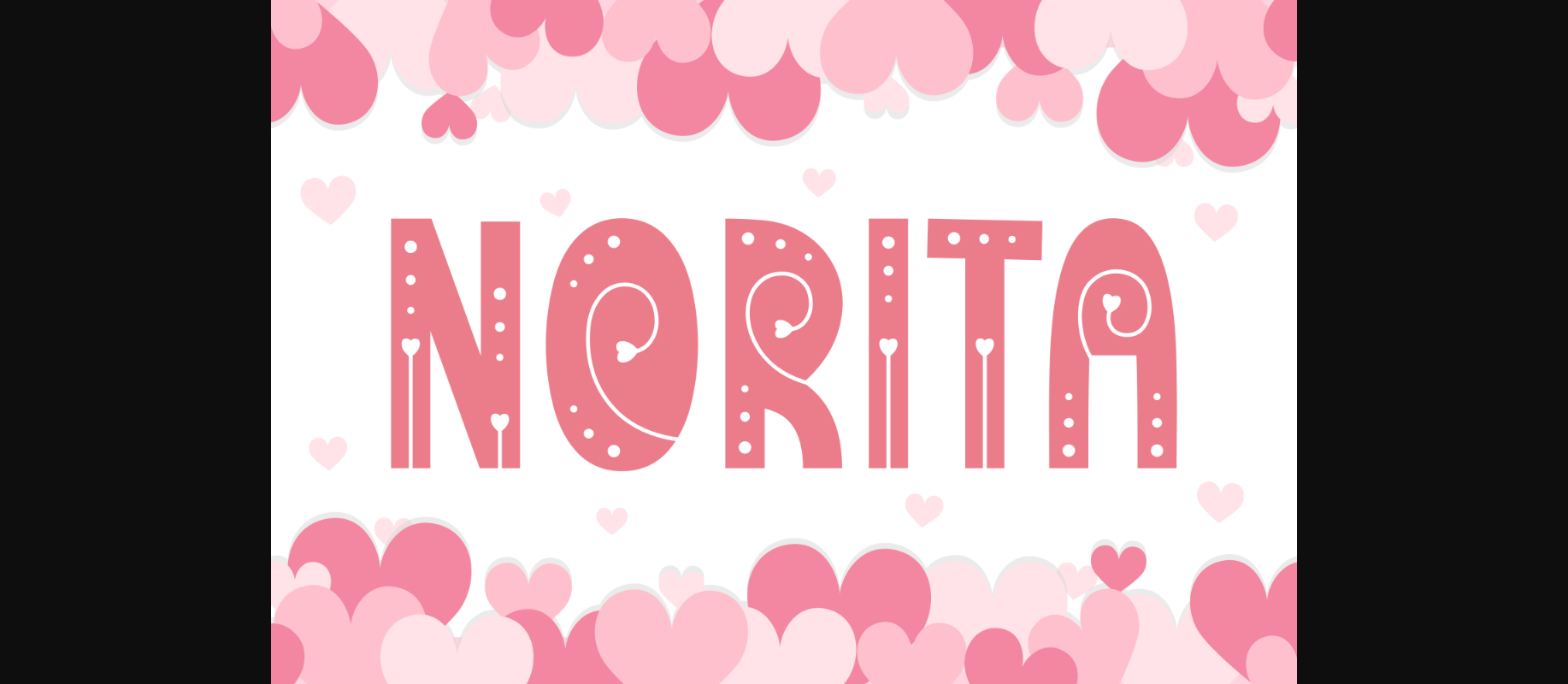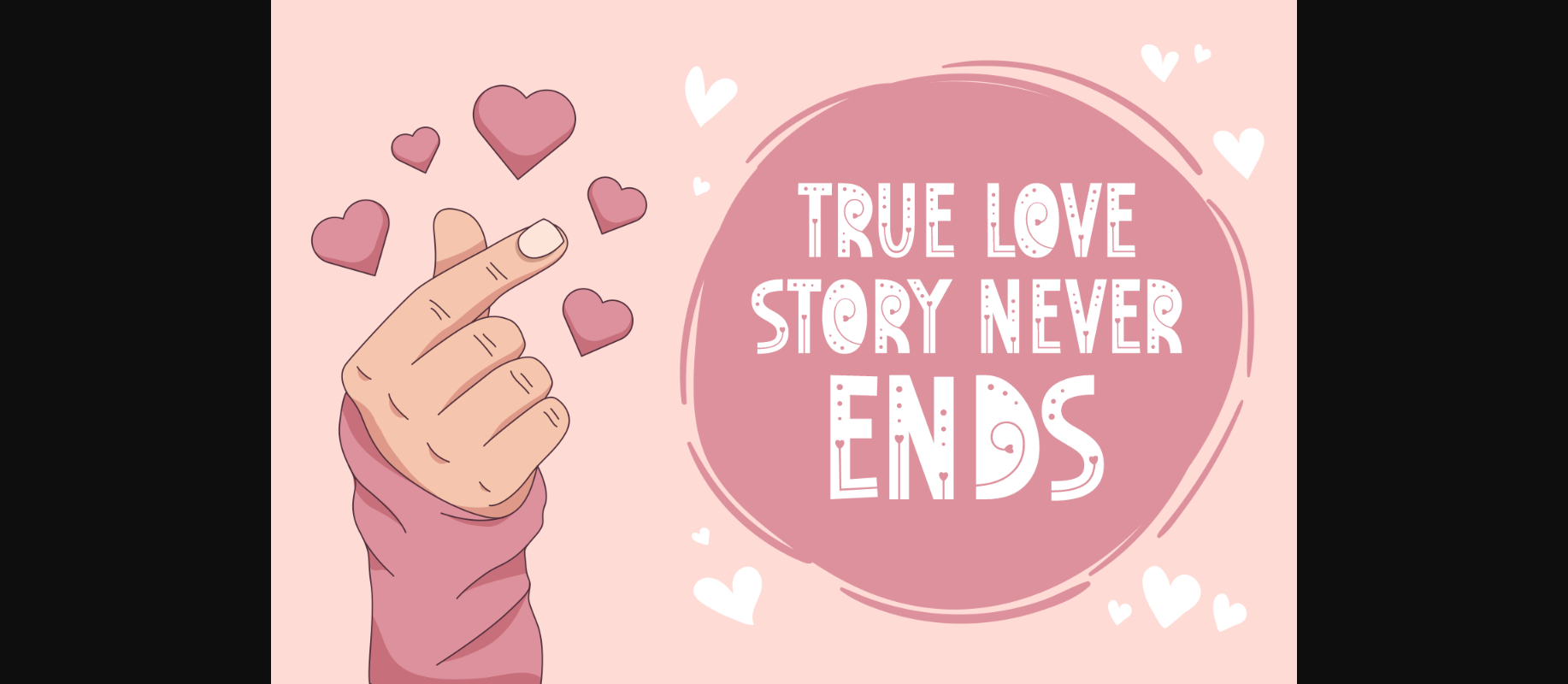
About Norita Font
Norita is a lovely decorative font with charming heart details and decorations. This sweet and unique font is just what you need for romantic typography! Use it to create stylish invitations, cards, posters, Valentine’s day gifts, and more.